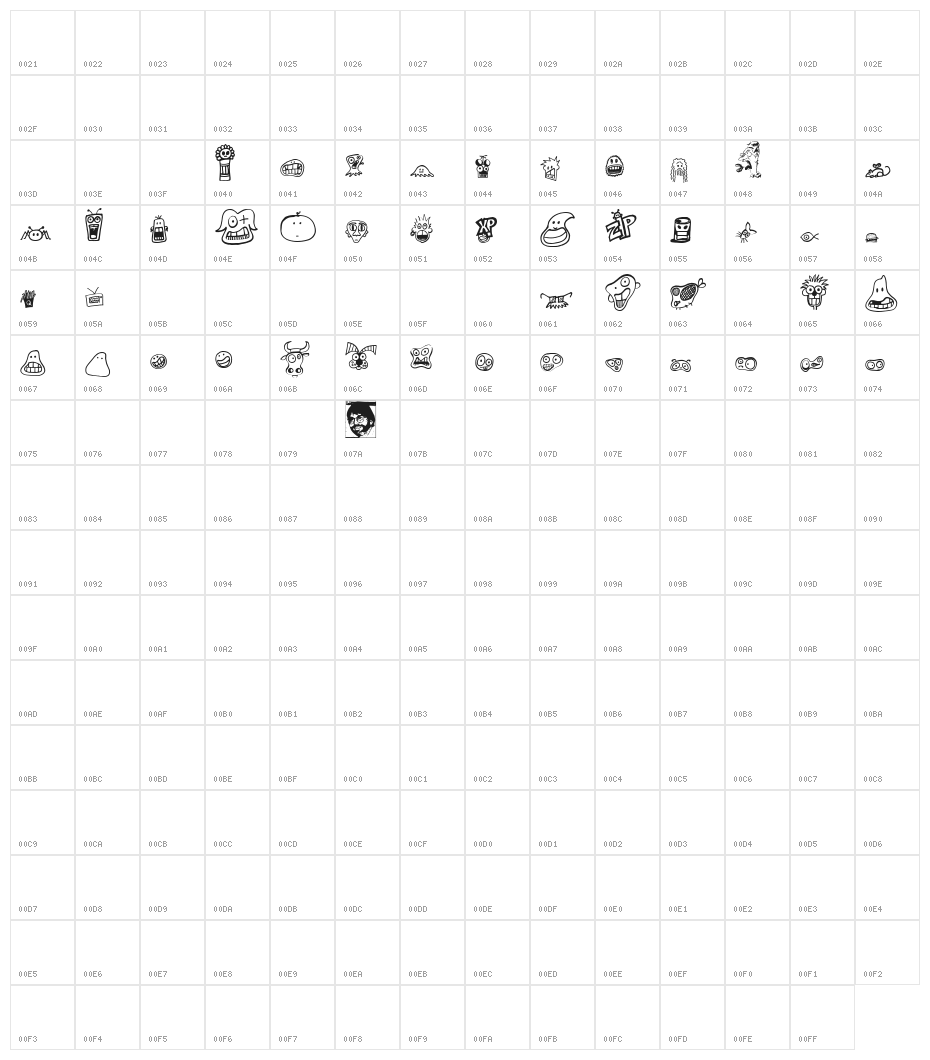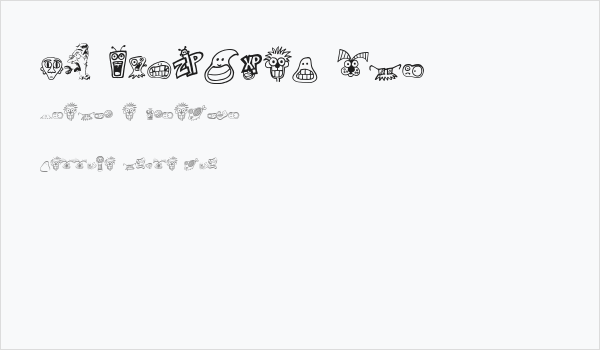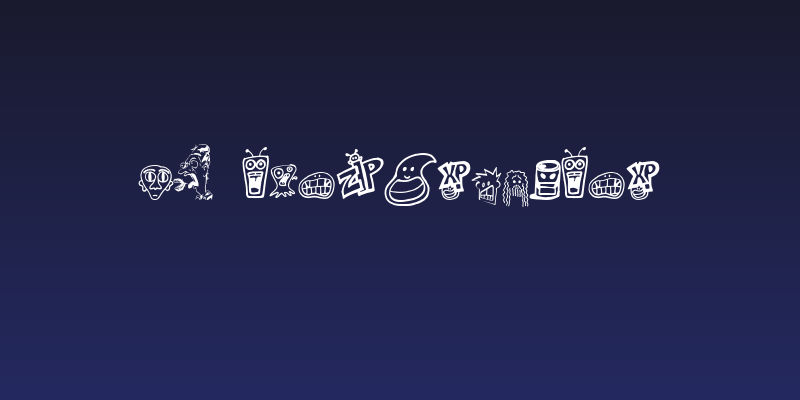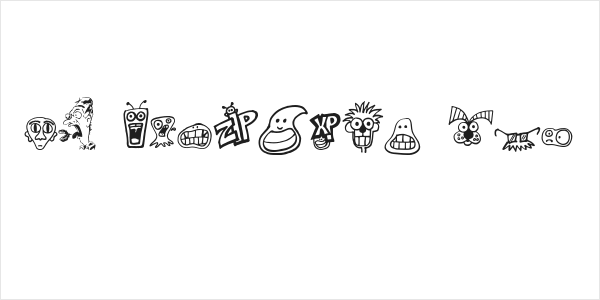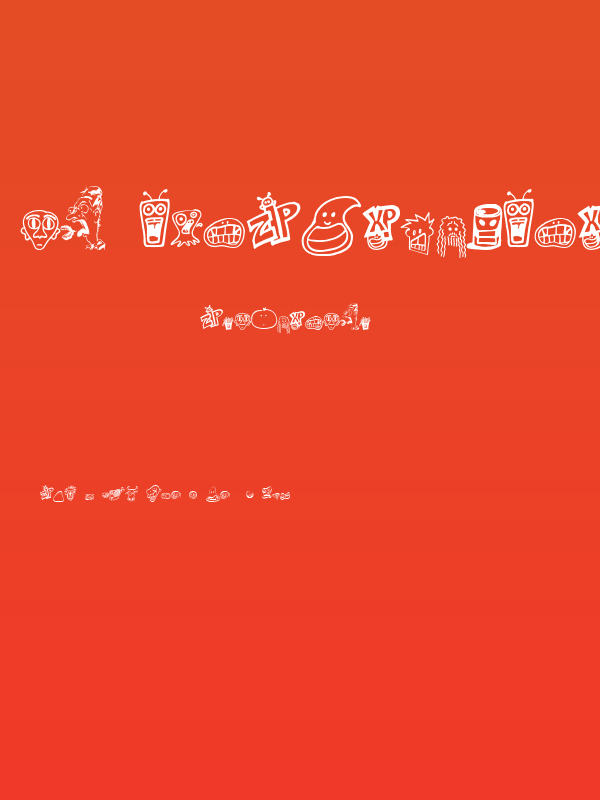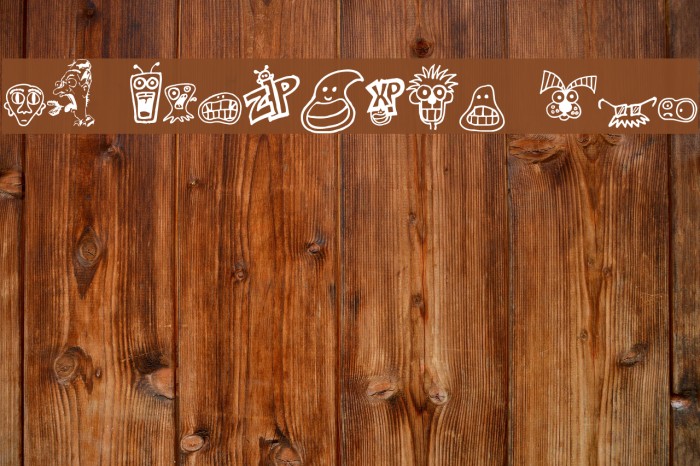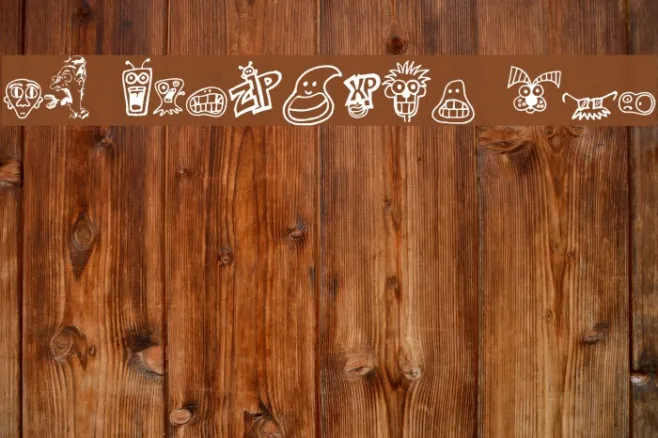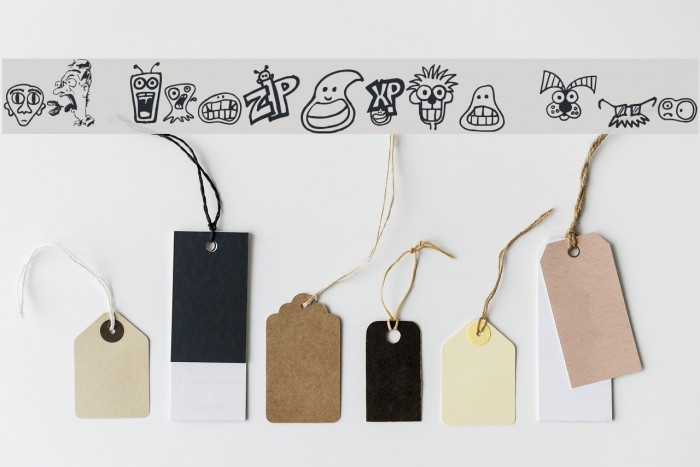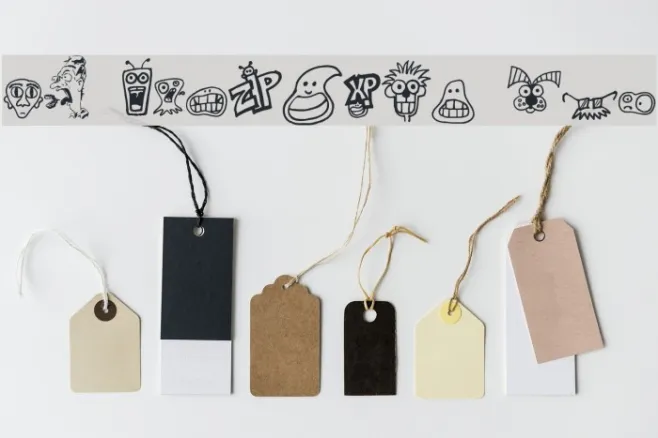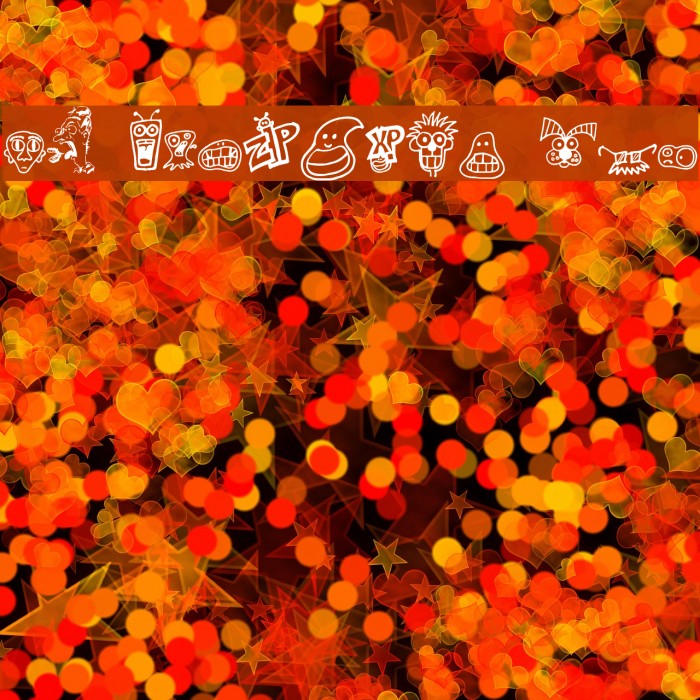
PHILBATSRegular Font
PHILBATSRegular Description
This font is a playful and whimsical collection of cartoon-like characters and symbols. Each glyph is a unique illustration, featuring a variety of quirky faces, abstract shapes, and imaginative creatures. The style is bold and expressive, with thick lines and exaggerated features that give each character a distinct personality. The font is highly decorative and not intended for traditional text use, but rather for creative projects where a fun and artistic touch is desired. The characters are tightly spaced, adding to the chaotic and lively feel of the design.
| Overall Style | Playful and Artistic |
| Use Case | Logos, Posters, Artistic Projects |
| Proposed Projects | Ideal for children's books, comic strips, playful posters, and creative graphic design projects. |